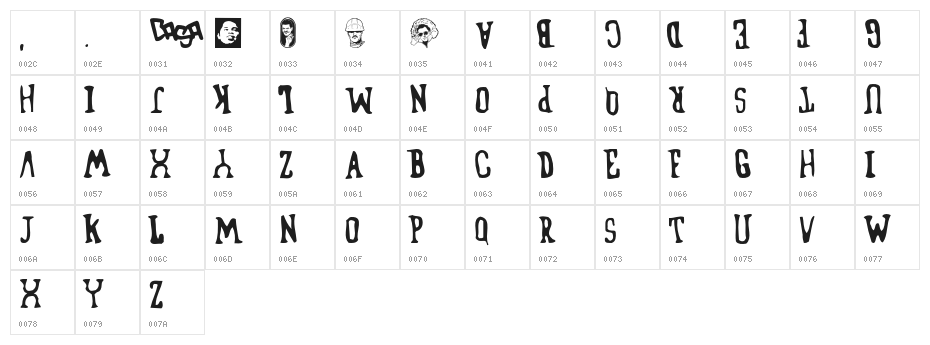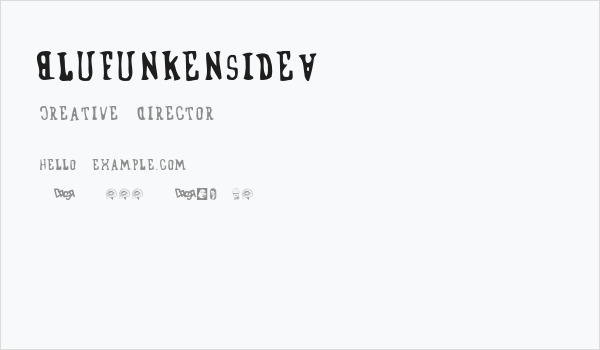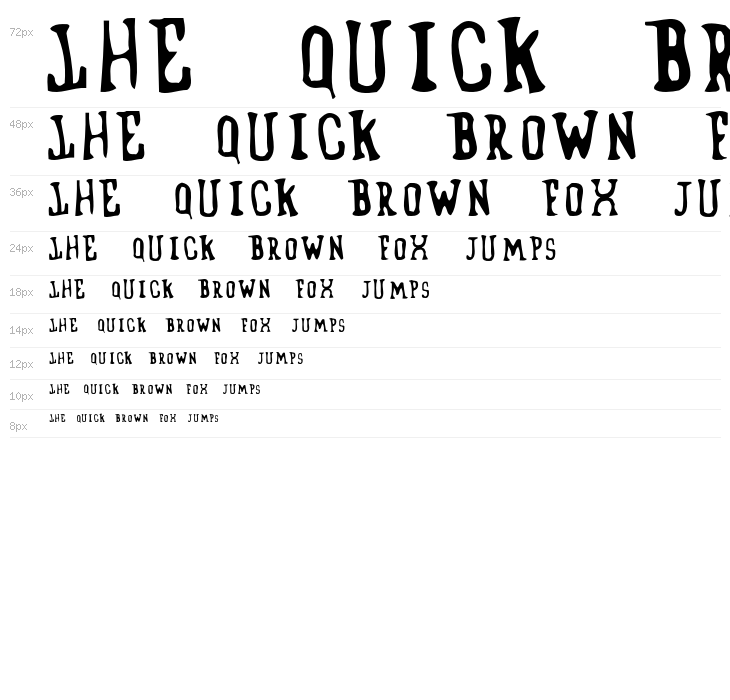
BlufunkensideA Font
BlufunkensideA Description
This font features a bold and playful design with a unique, artistic flair. The characters are characterized by their thick strokes and whimsical curves, giving them a lively and dynamic appearance. The uppercase letters have a slightly irregular shape, adding to the font's quirky charm. The lowercase letters maintain this playful style, ensuring consistency throughout the typeface. The numbers and special characters are equally bold and expressive, making them stand out in any design. This font is ideal for projects that require a fun and eye-catching typeface.
| Proposed Projects | Ideal for posters, album covers, children's books, and creative branding. |